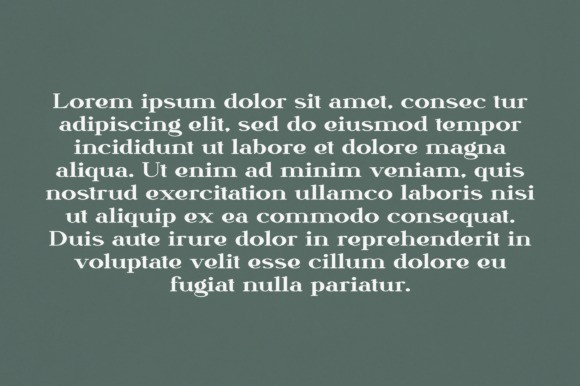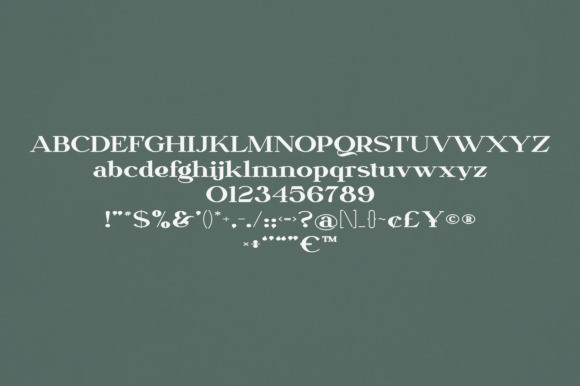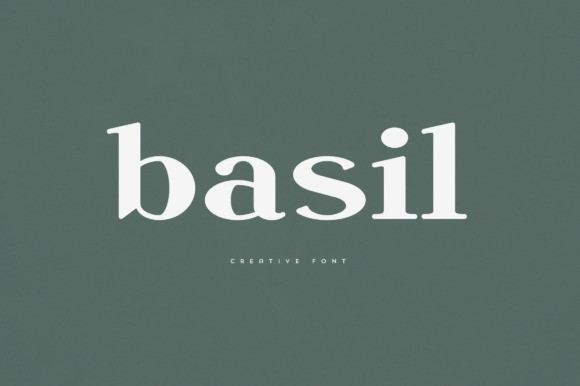
Basil Font
Basil Font is an elegant and versatile font that will make your typography truly unique! It will enchant every logo, branding, headline, or plain text!